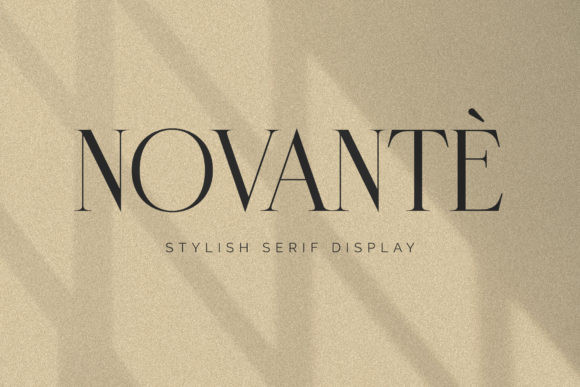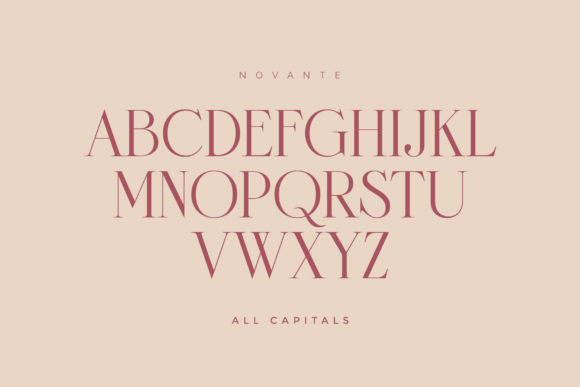
Novante Font
Novante simplifies elegance into one truly outstanding serif font. This font is the perfect fit for all of your logos, branding, social media, and crafty DIY projects.